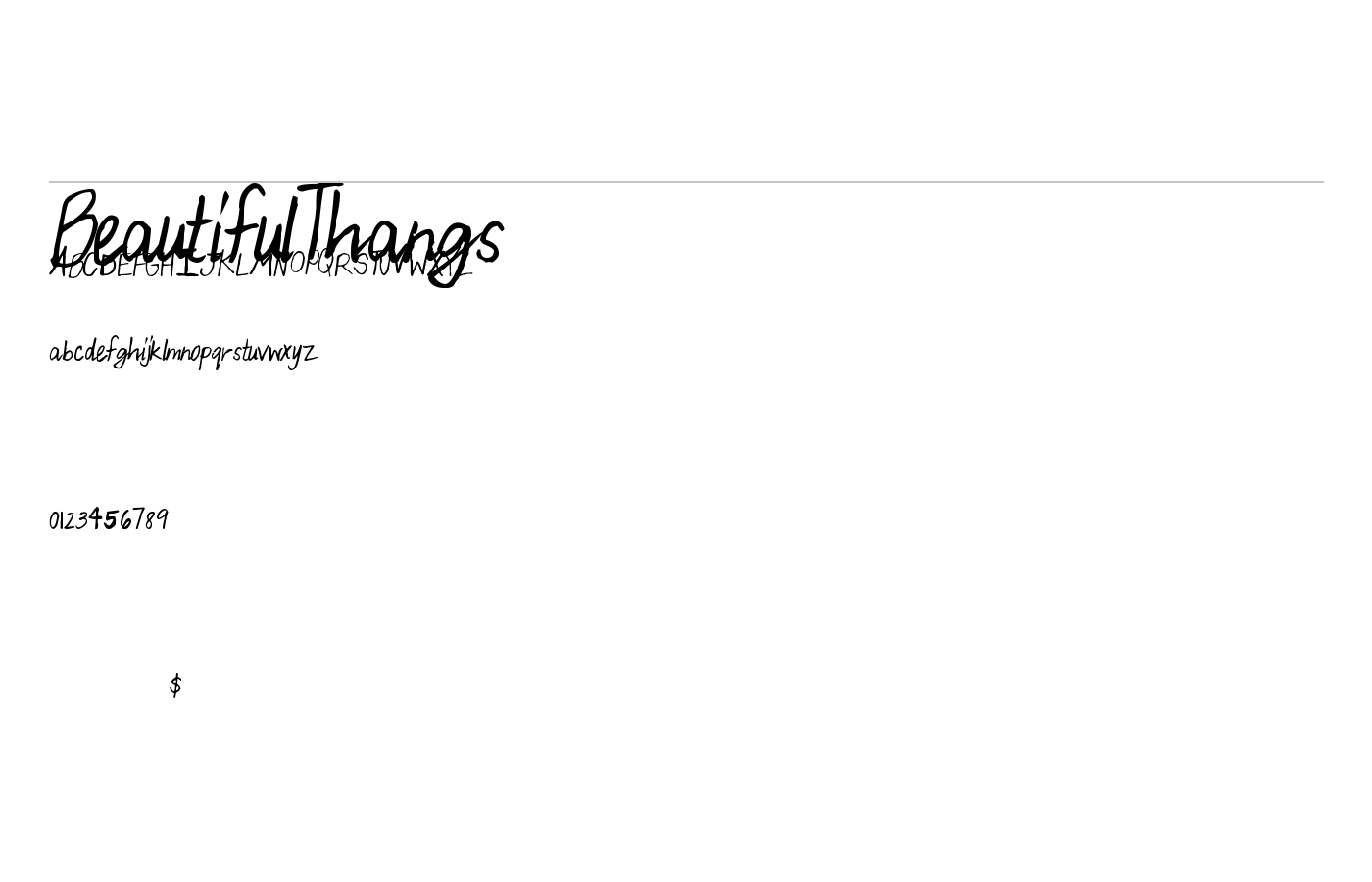
BeautifulThangs is a casual, handwritten script font with a light weight and narrow width that mimics natural pen strokes. Its playful and slightly irregular letterforms give it a personal, friendly feel, making it ideal for creative projects, informal branding, and invitations where a warm, approachable touch is desired. This font works best for headlines and decorative text rather than large bodies of text due to its delicate and airy style.
BeautifulThangs Font
About BeautifulThangs Font